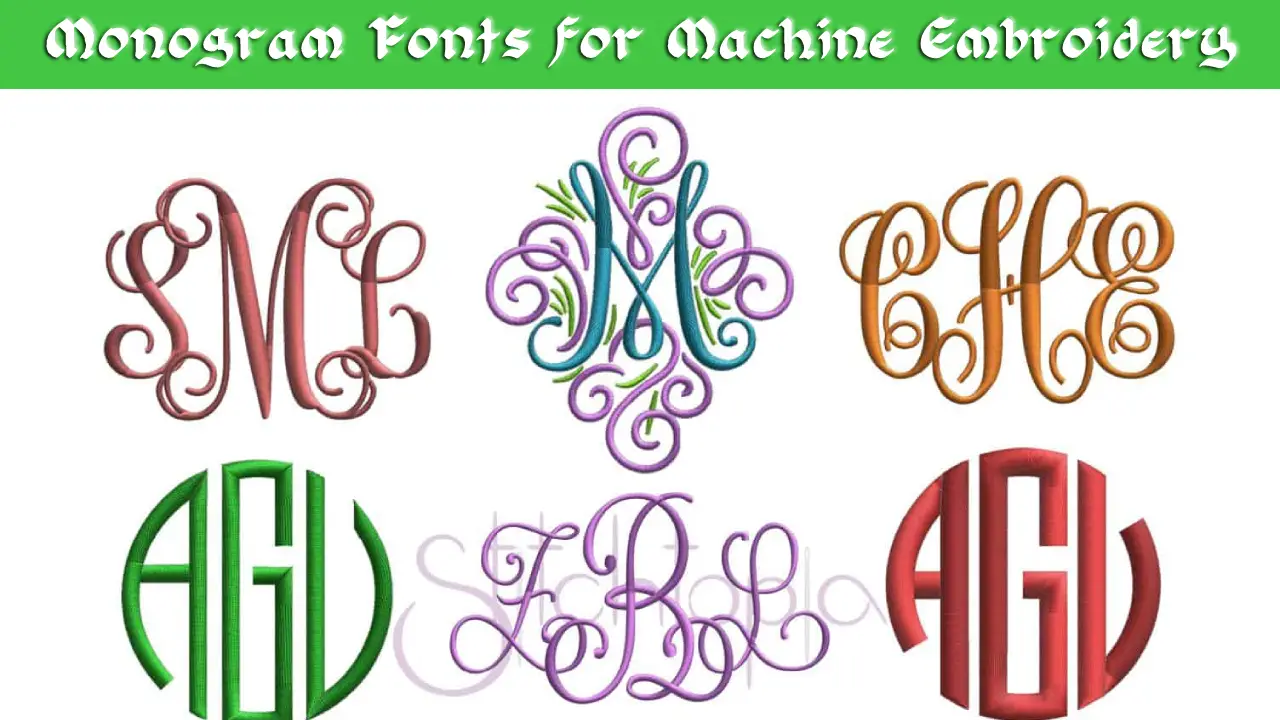
What is a Monogram?
A monogram is a form that is made into a new symbol by overlapping, joining, or combining two or more characters. Monograms combine the initials of an individual or company and can be used as identifiable symbols or logos.
Want an easy way to think about it? When you combine the letters, and each one depends on the other to give a part, it is a monogram (mono = one). This creates a new symbol.
It may seem confusing, but nowadays, “monogram” means clothes, luggage, books, and as many things as you can imagine, sewing, painting, engraving, embroidering, or anything embossed. They serve as a mark of ownership, some simple and some simple.
What are Monograms used for?
Some companies and organizations use monograms for logos, usually with their acronyms. So that we do not infringe on copyright, we will not name them here, but let’s say that many sports teams and designer companies have monograms. Fashion is a heavy consumer of monograms. There are three major wallet designers who all use ciphers for their logos (remember, ciphers are a group that allows you to read individual characters). All of these have become internationally known “logos” for these brands.
Embroidery Monogram Fonts
Embroidered monogrammed fonts are easy to design, easy to sew, and offer a personal touch to every project where they are used. It is not difficult to see why monogramming is one of the most popular methods of embroidery.
Below are some free embroidered monogram fonts for your use. These free embroidered monogram fonts can be used to create monograms for yourself, your family or your spouse. You will discover everything from formal and traditional to modern and informal.
Using these monogrammed fonts as wedding fonts will look great for saving your dates, events, table numbers, and place cards.
What Should Know Before Buying Any Monogram Fonts For Machine Embroidery?
Embroidery letter size
Before buying any litter set, make sure that the set you are buying has the letters of the size you need. Although you can often avoid moving a letter up or down a bit, you should never scale the digitized design significantly, otherwise, the sewing density will be too high or too low.
Top 10 Embroidery monogram fonts
These embroidered monogram fonts are suitable for machine embroidery, but they can also be used by hand to create embroidered monogram patterns on sofas, pillow covers, and towels.
Landsdowne
The embroidered monogram has the traditional feel of the font, but it also has a touch of ancient feeling, which makes it powerful and interesting. Landsdowne is also available in a shaded version called Landsdowne Shadowed, which adds a beautiful shade to the typeface, enhancing its drama. Your decorations will look more attractive with this font.
Poster Boy Monogram
The Poster Boy Embroidery Monogram font is very classic and elegant, and is perfect for use on clothes and towels.
Because it resembles an intricate design, it has a formal look in nature. If you want to be very creative, sew it on hand towels and linen or even on a man’s sleeve. So sissy!
Empress Monogram
The Empress Embroidery Monogram font manages to be very feminine and elegant without appearing too feminine. This is a beautiful embroidered monogram pattern that can be used to make a simple fleece or dress for a woman. It’s also relatively easy to understand.
Monogram KK
The embroidery is known as Monogram KK font, it is your traditional monogram font, complete with beautiful cursive characters, ready to express. The upper case is accessible, while the lower case is just a lower version of the upper case.
Rounded Monogram
This round embroidered monogram font, in my opinion, offers an excellent medium. It is also a very flexible embroidered monogram motif as it is neither too macho nor too greasy in terms of its design and space. You can use it as a couple gift, with their names written on it. This pattern will look great on a set of decorative cushions or bath towels.
Ans: The Embryo Fonts Plus (EFP) program icon can be seen on your computer’s desktop (desktop). 7. Select Load Letters Page 2 from the drop-down menu. Once you double-click on this font, it should automatically load into the program.
Ans: One of the most common ways to monogram a four-letter name is to place the four letters in sequential order: “first,” “middle,” “last,” or for me, “MSXW.” For this type of monogram, sometimes called a “block” monogram, all the letters are the same size and are usually in a block, straight font.